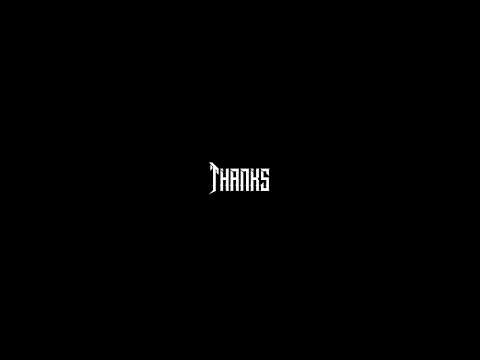
Dramaga Typeface + Extras
Hello friend, let me introduce my product Dramaga Typeface + Extras
Dramaga Typeface is a font inspired by Posthardcore Band. Try to mix the uppercase and lowercase with ( standard ligature - swash - stylistic alternates ) to find the suitable layout for your designs. It's a good choose to create ghotic design, branding, logos, product packaging, cover album, invitation, qoutes, t-shirt, banner, tatto, label poster etc.